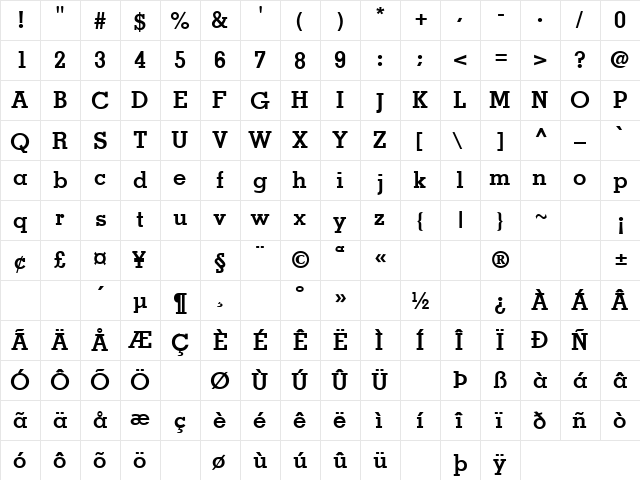
Treaties 2 Regular Font Preview
Treaties 2 Regular
Design Context for Treaties 2 Typeface
Treaties 2 is a composed and adaptable typeface that performs quietly and consistently across a wide range of design contexts.